10 Best Serif Fonts Designs for Your Creative Projects
Finding the right typography can be a real challenge, but this curated collection of Serif Fonts is here to save you time and spark your inspiration. From high-contrast editorial styles to versatile branding classics, these professional assets provide everything you need to give your creative work a polished, high-end edge.
1. Cornelia Font Duo
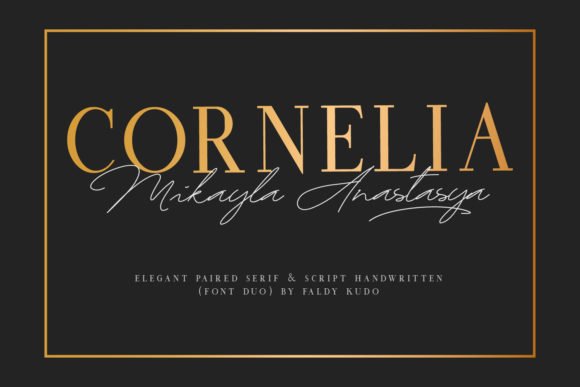
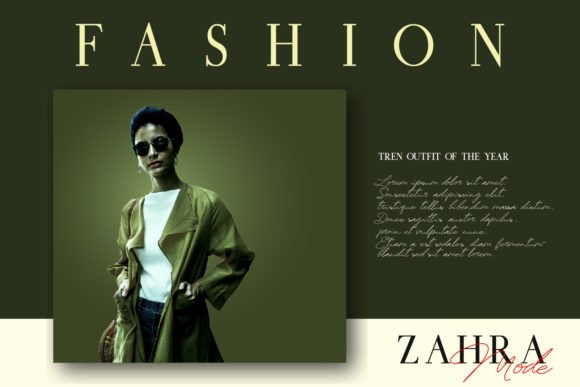
I absolutely love how Cornelia combines a sophisticated serif with a graceful luxury script. This duo is a dream for anyone looking to create stunning wedding invitations or high-end stationary art. The contrast between the two styles adds an immediate touch of contemporary beauty and elegance to social media posts and greeting cards. It’s a versatile and eye-catching choice that perfectly embodies modern luxury in the world of Serif Fonts.
2. Rodetta Rossie Font Duo
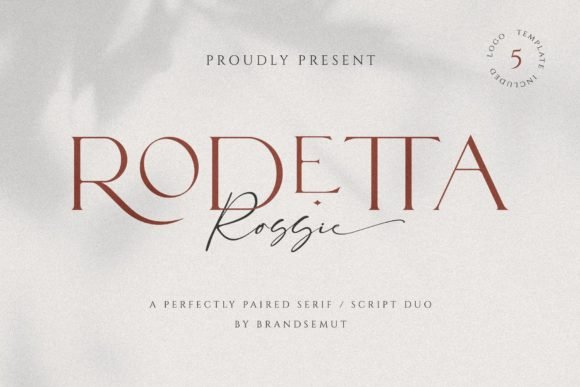
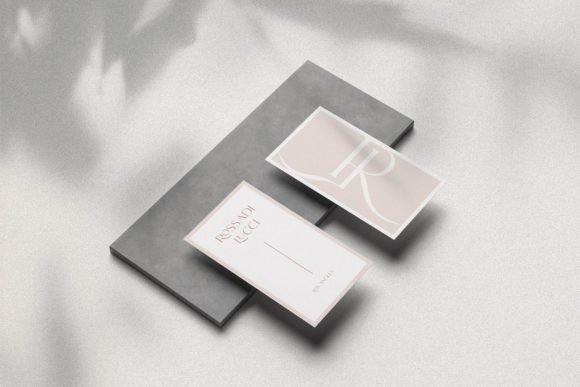
I’m truly impressed by how Rodetta Rossie brings together an elegant script and a clean serif in one perfect package. This combination creates a unique and sophisticated feel that works wonders for modern branding and luxury design projects. Whether I’m designing a chic logo or stylish editorial layouts, this duo offers incredible flexibility and a high-end aesthetic. It’s definitely a standout choice for anyone exploring premium Serif Fonts with a touch of character.
3. Nevalisa Serif Font
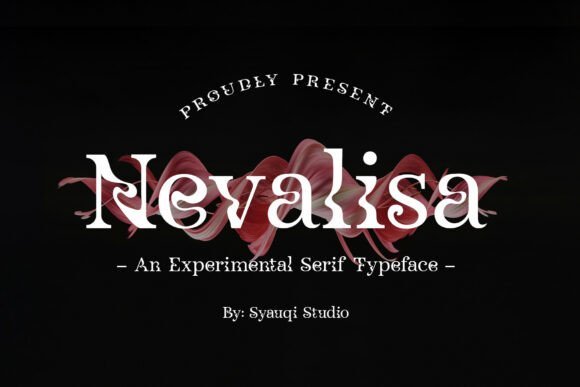
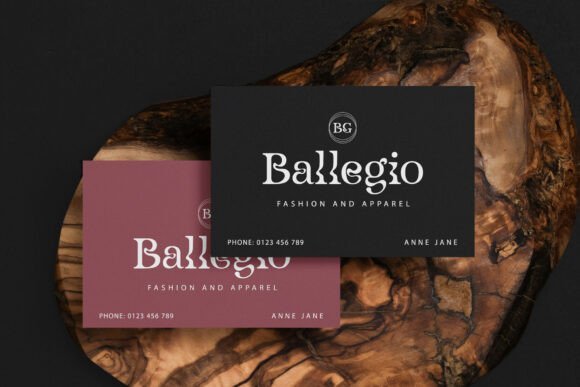
I’m fascinated by Nevalisa’s sharp serifs and its unconventional structure, which offer a truly fresh perspective on traditional Serif Fonts. It brings a sophisticated yet innovative vibe to high-end fashion branding and artsy creative projects. I find it perfect for making a bold statement in editorial designs or premium packaging. Its dramatic appeal and unique character ensure your message stands out with undeniable charm and modern elegance.
4. Gafilen Serif Font
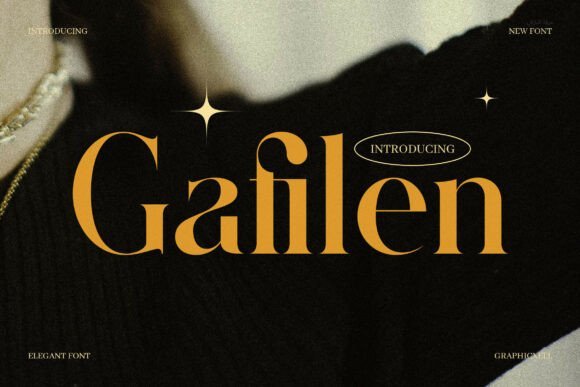
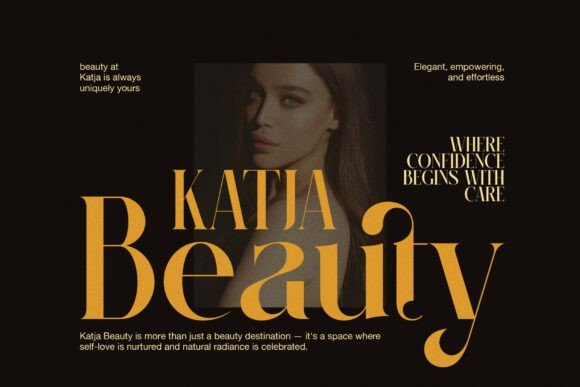
I find Gafilen to be the perfect blend of elegance and ease of use, making it ideal for high-end fashion logos or magazine headlines. Its character set includes ligatures and alternates that allow me to add a personal flair to any design. It performs beautifully across both print and digital platforms, ensuring a polished, professional look every time. This is a top-tier choice for projects requiring clear yet stylish Serif Fonts with a lasting impact.
5. Bether Serif Font
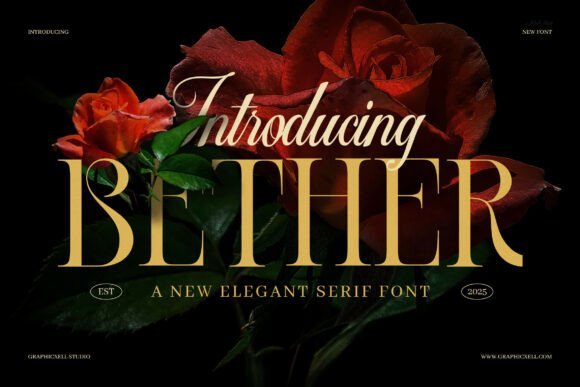
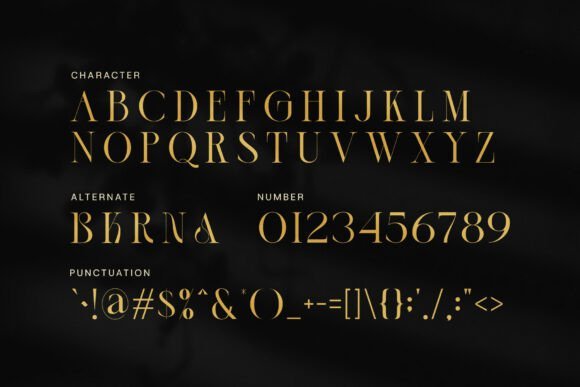
I love Bether for its impeccable cleanliness and soft edges that give classic styles a modern twist. This font masterfully blends traditional curves with a current aesthetic, creating an atmosphere of luxury and professionalism. It is perfectly suited for high-end fashion branding, magazine layouts, and stylish headers. Choosing such Serif Fonts ensures your project achieves both sophistication and visual harmony.
6. Cagront Serif Font
Cagront is a real find for those who appreciate a refined look with a unique twist. I love how its distinct alternates make it stand out from standard serif fonts. It’s incredibly versatile, looking just as good on a wedding invitation as it does in fashion branding or magazine layouts. For any project needing a touch of class and modern elegance, these Serif Fonts are my absolute go-to.
7. Negto Serif Font
Negto is a stunning example of how modern Serif Fonts can bridge the gap between classic elegance and contemporary boldness. I’m impressed by its high-contrast strokes and sharp serifs, which command attention instantly. It’s a perfect match for high-end editorial work, luxury packaging, and minimalist brand identities that need a strong, sophisticated voice.
8. Maghire Serif Font
Maghire is a masterclass in professional polish and readability. I’m truly fond of its balanced letterforms and subtle ligatures, which create an exceptionally smooth text flow. It’s a versatile choice that thrives in both minimalist and luxurious settings, from boutique branding to high-end fashion campaigns. These Serif Fonts are a must-have for any designer seeking a timeless yet trendy visual identity.
9. Kidora Serif Font
Kidora is the perfect blend of modern sophistication and approachable style. What strikes me most is how its smart ligatures add a polished, professional touch without feeling over the top. It works beautifully for everything from cafe menus to high-fashion logos. If you want your designs to look clean and chic, Kidora is one of the best Serif Fonts.
10. Artha Serif Font
Artha is a masterclass in professional refinement and typographic creativity. I’m particularly fond of its stunning ligatures and alternate characters, which allow for a truly personalized touch in any design. Whether you’re crafting a high-end boutique logo or a luxury product label, these Serif Fonts ensure your work looks polished and distinctive. It’s a must-have for an elevated, stylish feel.